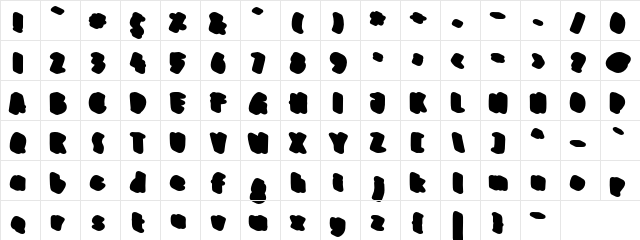
Ghoust shadow Regular
Design Context for Ghoust shadow Typeface
Ghoust shadow brings ornamental detail and strong personality to headlines and identities, where visual impact matters more than quiet functionality.
Font Pairing: Pair with a clean neutral sans-serif for body copy to let Ghoust shadow's character lead without overwhelming the composition.
Pro Tip: Use Ghoust shadow exclusively at display sizes — it was designed to be seen, not read at length. Let a neutral companion handle body copy.